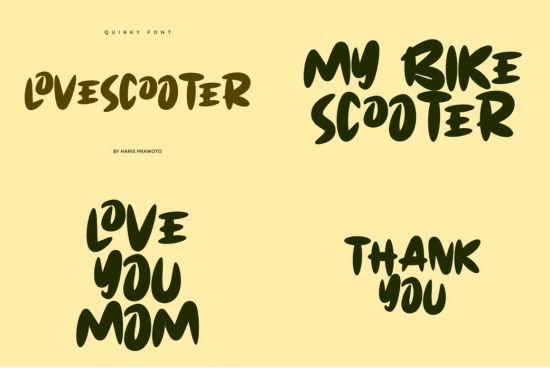
Lovescooter is a chunky lettered and quirky display font. Its friendly feel makes this font incredibly versatile, fitting a wide range of contexts. Add it to your creative ideas and notice how it makes them stand out!